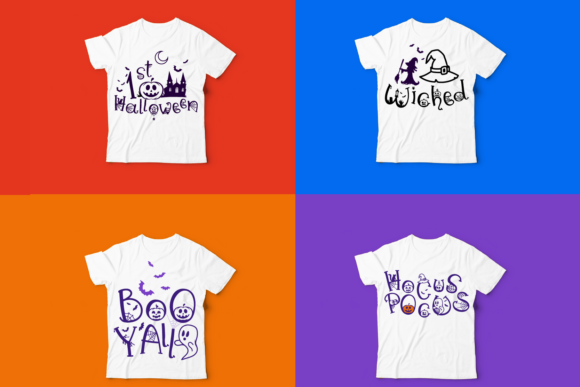
Trick or Treat Font
Trick or Treat is a lovely Halloween font. It will take your Halloween crafting projects to the next level. It’s perfect for Silhouette Cameo & Cricut.